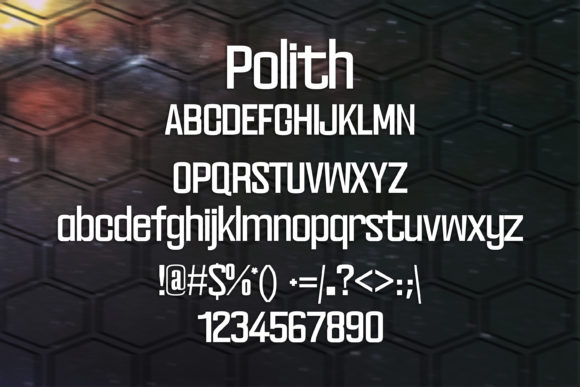
Introduction to Polith Font
Polith is an incredibly stunning sans serif font that’s perfect for any science fiction design project.
Key Features of Polith Font